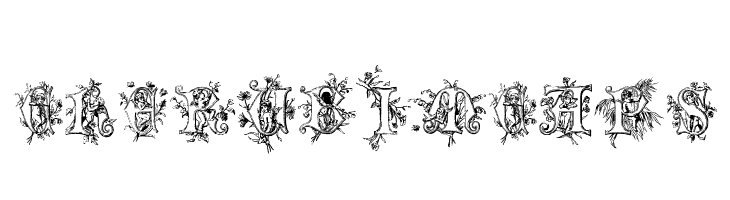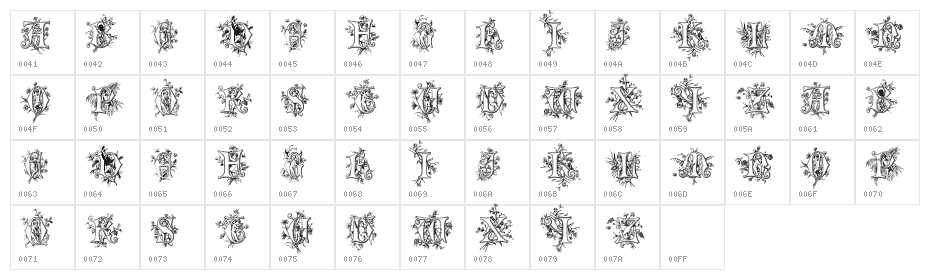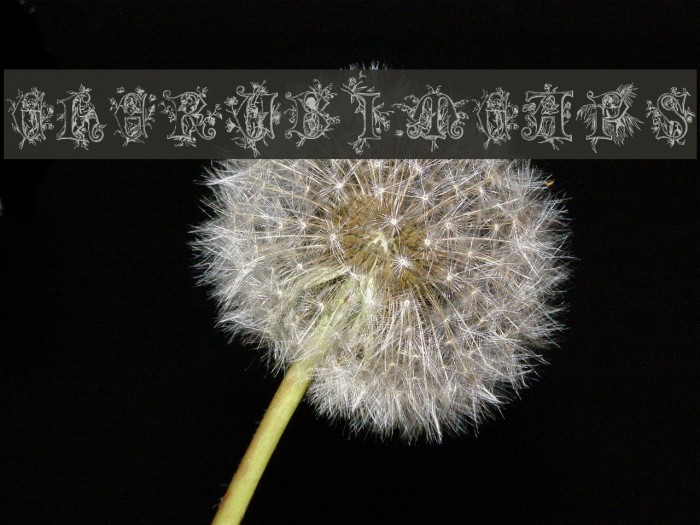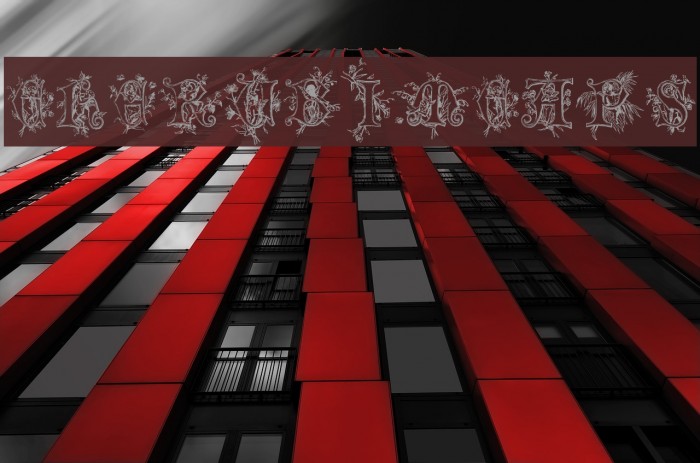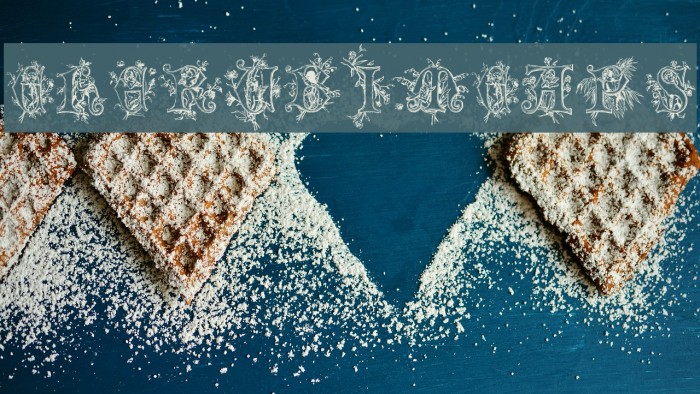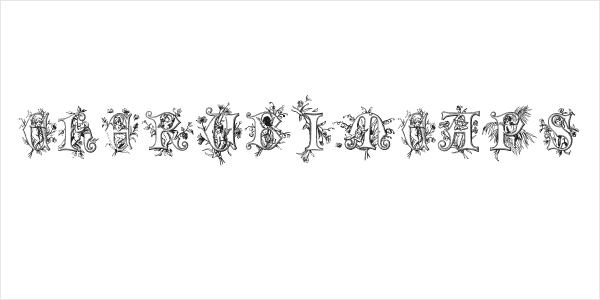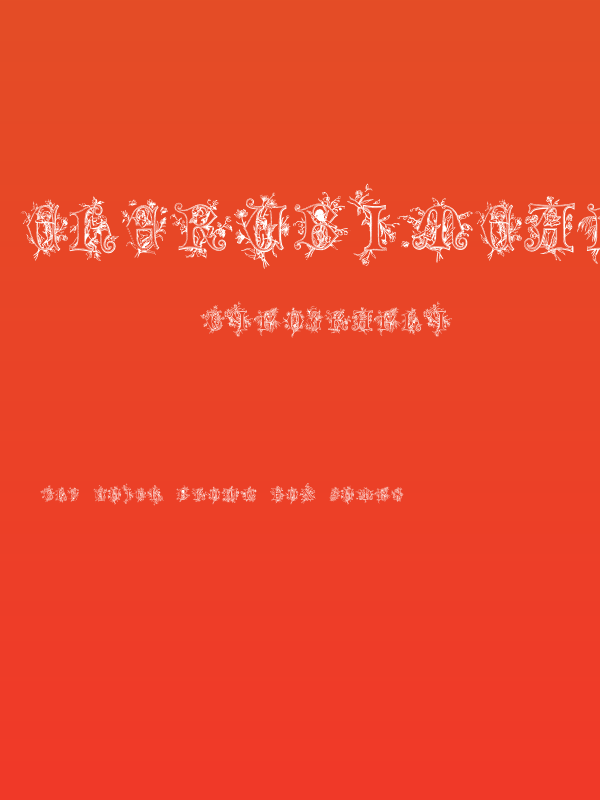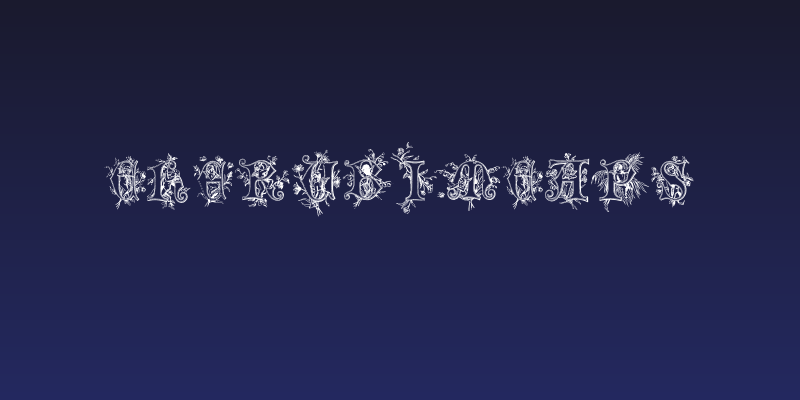
CherubimCaps Font
CherubimCaps Description
This font is an ornate and decorative typeface, characterized by its intricate detailing and elaborate flourishes. Each letter is adorned with embellishments that resemble vines or floral motifs, giving it a distinctly vintage and classical appearance. The design is reminiscent of illuminated manuscripts, where each character stands as a piece of art on its own. The overall aesthetic is highly decorative, making it suitable for projects that require a touch of elegance and historical charm. The font's complexity and artistic nature make it less suitable for body text but ideal for headlines or decorative purposes.
| Proposed Projects | Ideal for wedding invitations, vintage-themed posters, book covers, and decorative signage. |